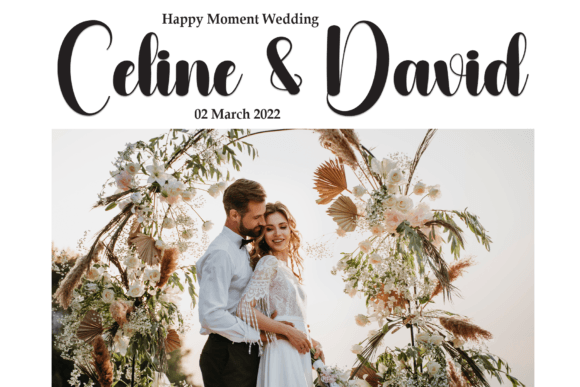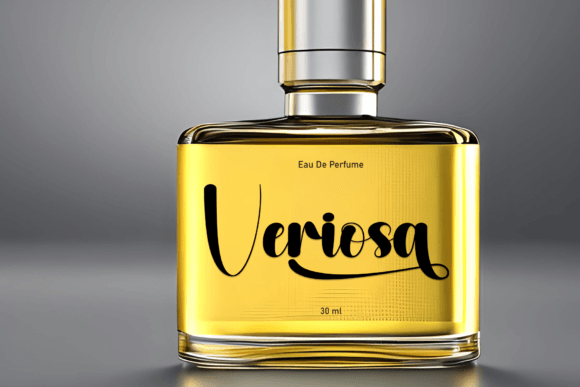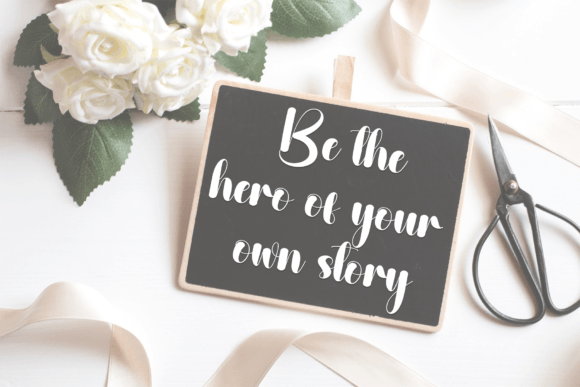
Introduction to Sidecar Font
Sidecar is a stylish and incredibly elegant script font.
Key Features of Sidecar Font
Why Choose Sidecar Font?
Sidecar Font offers exceptional quality and versatility, making it a valuable addition to your design toolkit. Whether you’re creating for personal projects or commercial use, Sidecar Font delivers professional results.